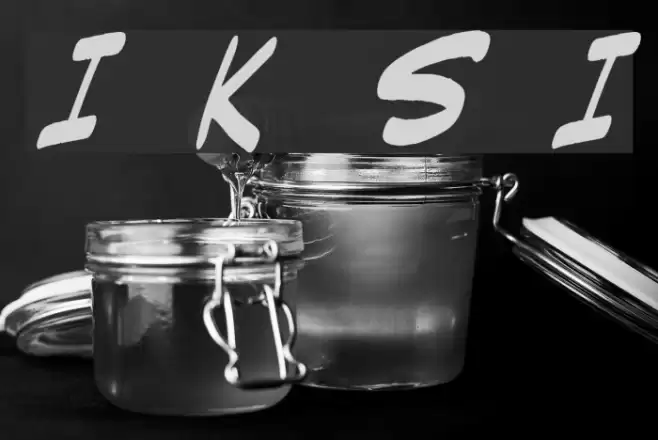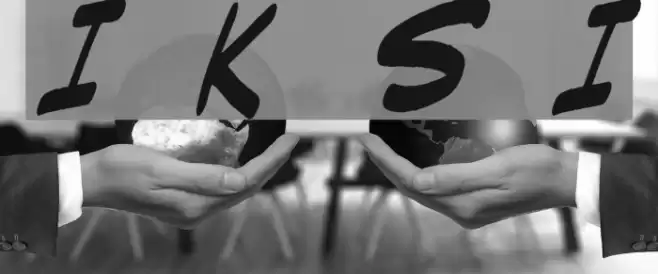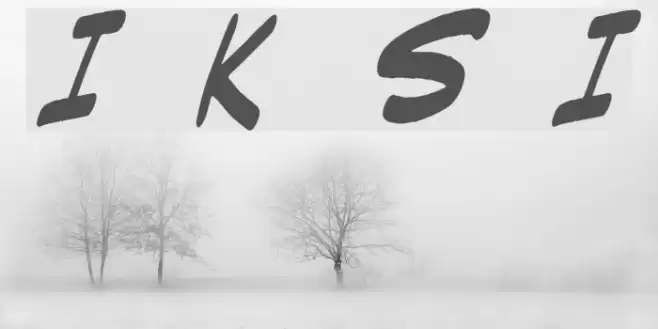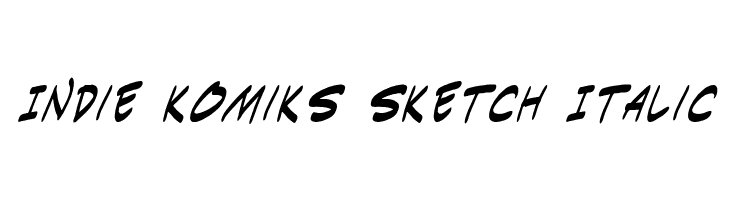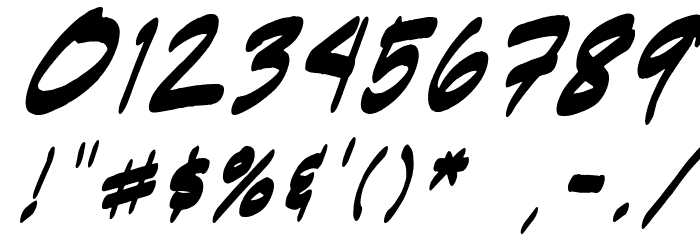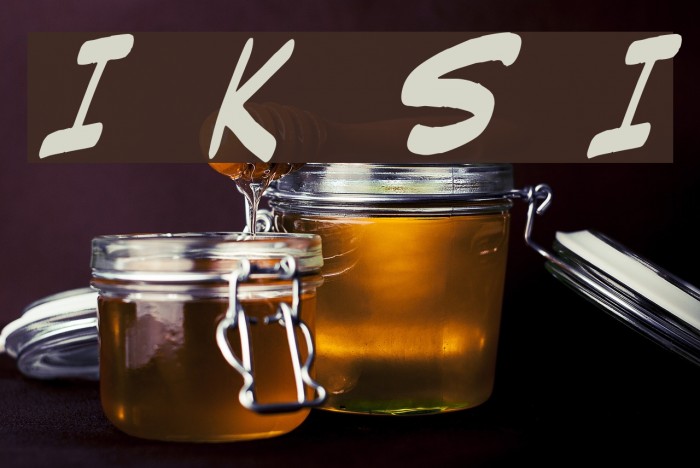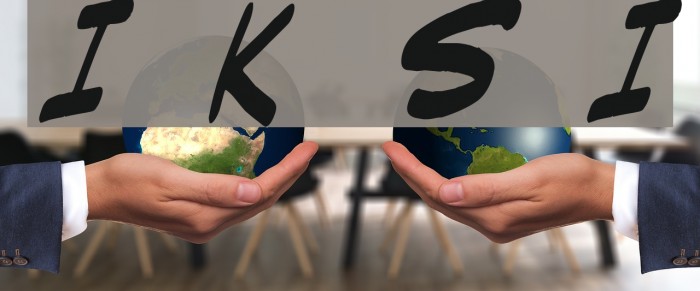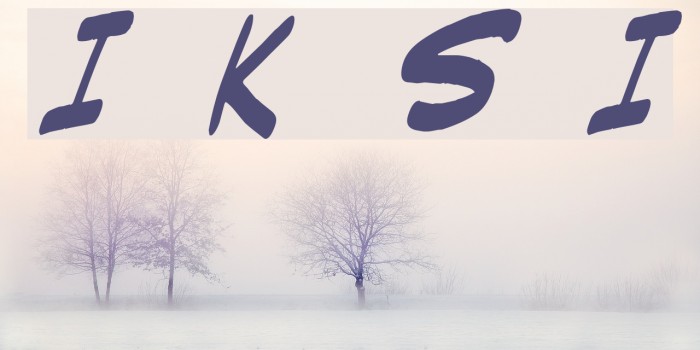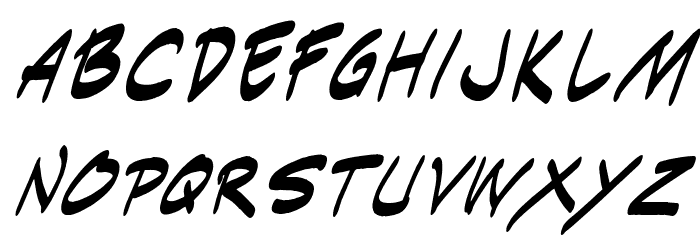
Indie Komiks Sketch Italic Font
Indie Komiks Sketch Italic Description
This font exudes a dynamic and energetic style, characterized by its bold, italicized strokes that mimic a hand-drawn sketch. The letters are slightly slanted, giving a sense of movement and spontaneity. The uppercase and lowercase letters maintain a consistent flow, with sharp angles and smooth curves that enhance its sketch-like appearance. The numbers and special characters follow the same aesthetic, ensuring uniformity across all glyphs. This font is perfect for projects that require a lively and informal touch, such as comic books, graphic novels, or creative posters.
A bold, italicized, hand-drawn sketch font with dynamic strokes from Comic fonts.
- Proposed Projects: Ideal for comic books, graphic novels, creative posters, and informal branding.